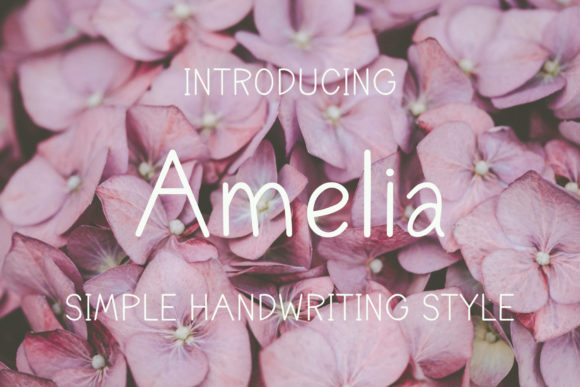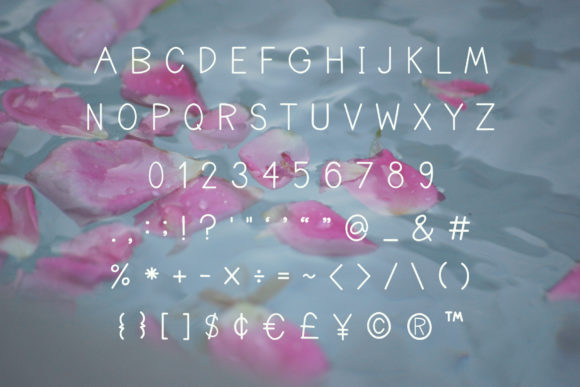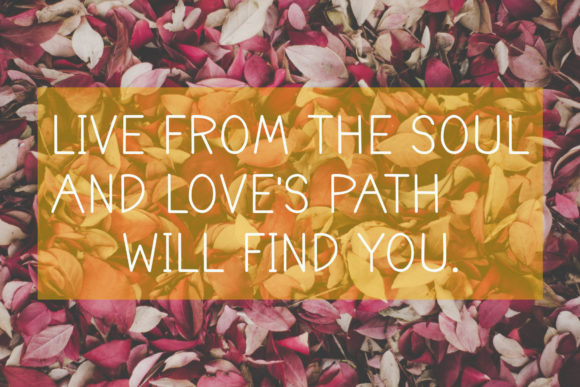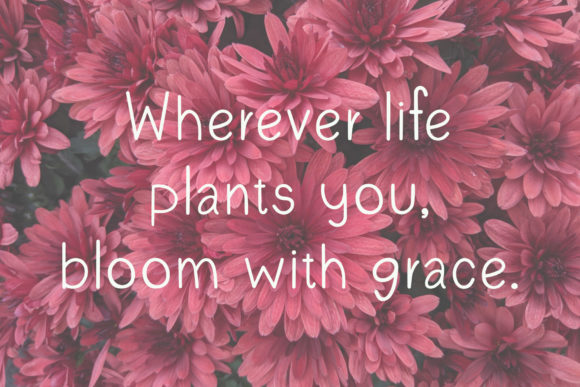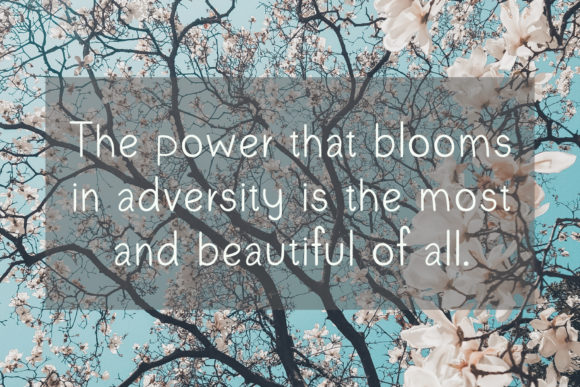
Amelia Font
About Amelia Font
Amelia is a sweet and relaxed handwritten font. Clean and a cute, this font is the perfect fit for all of your logos, branding, social media, and crafty DIY projects.